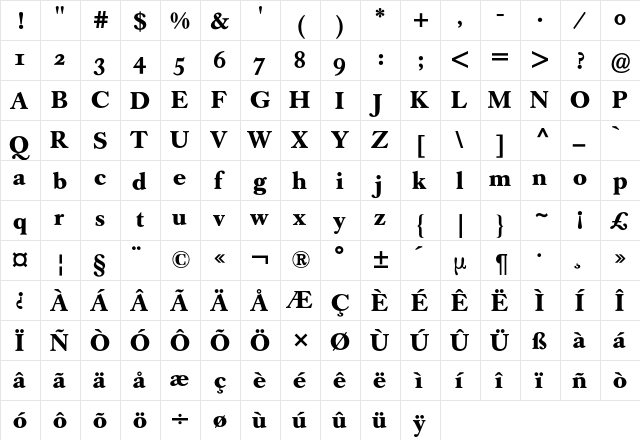
Caslon Buch Expert BQ Regular
Design Context for Caslon Buch Expert BQ Typeface
Caslon Buch Expert BQ is a composed and adaptable typeface that performs quietly and consistently across a wide range of design contexts.